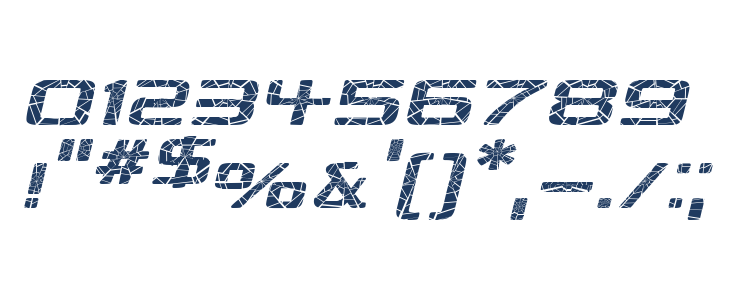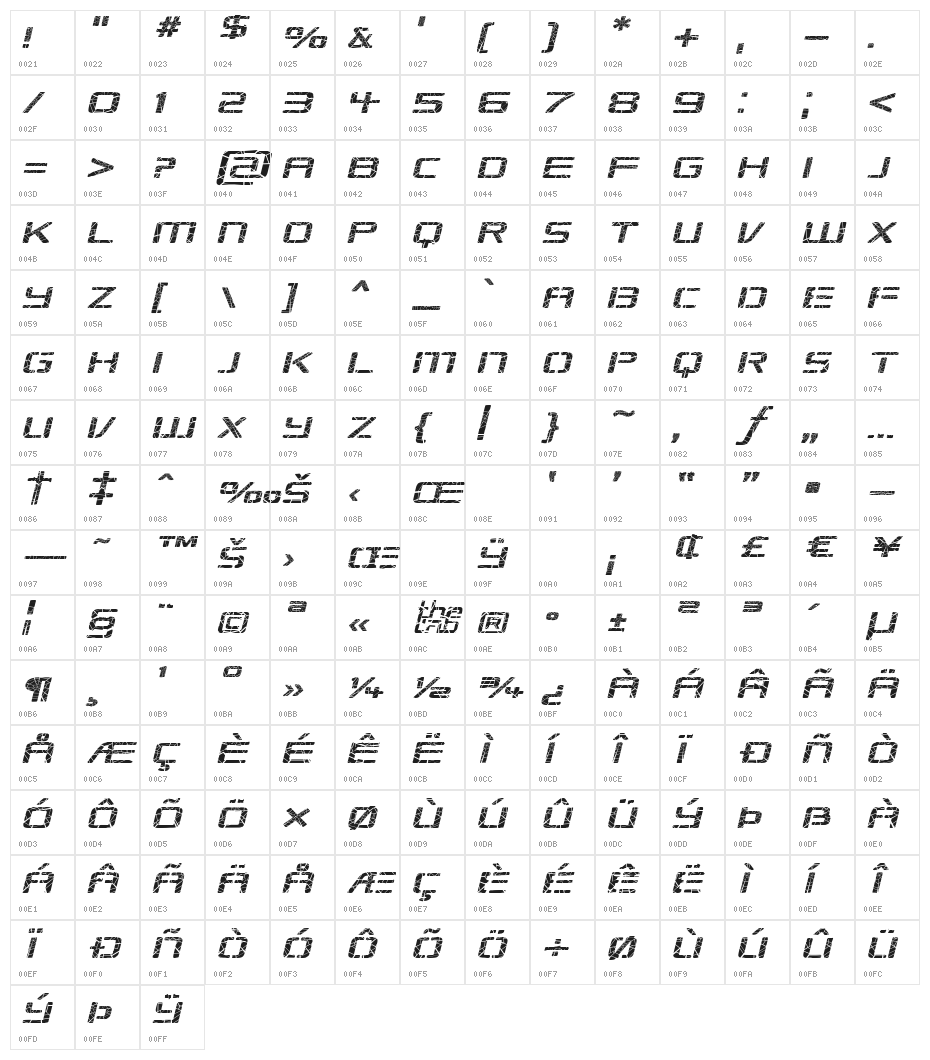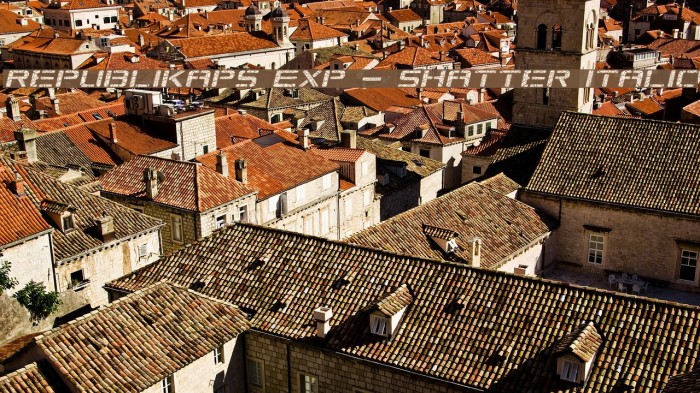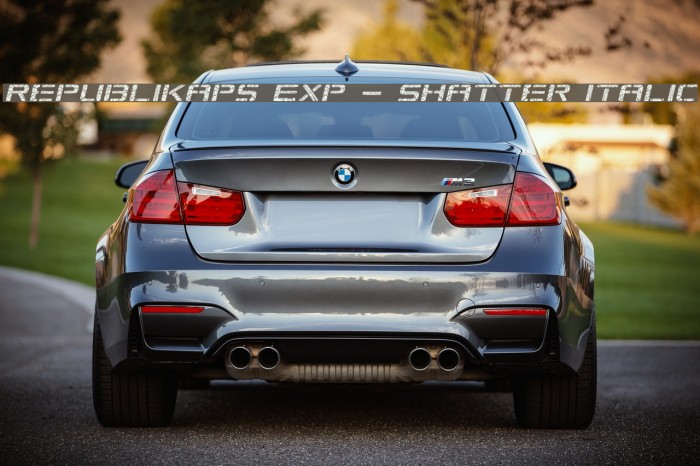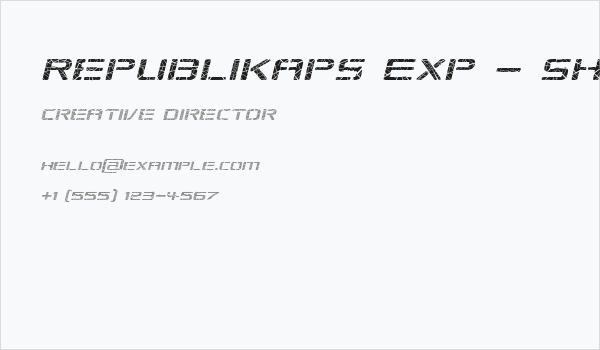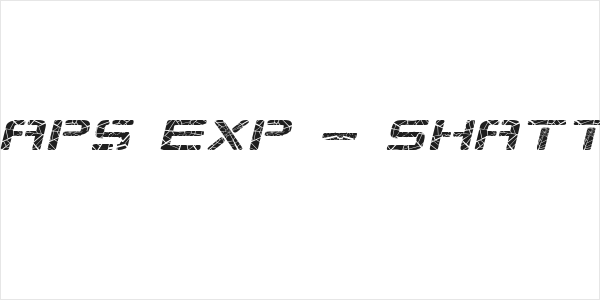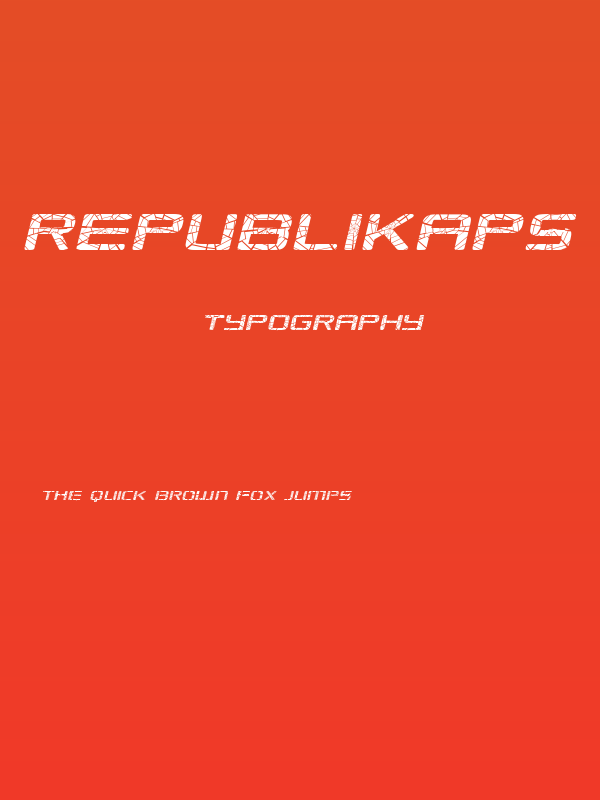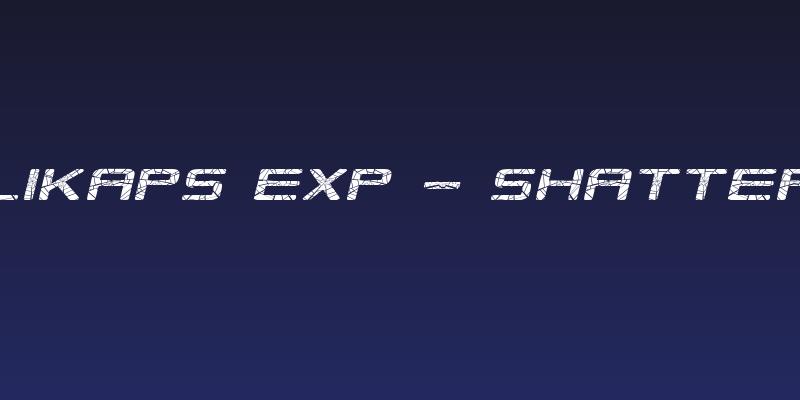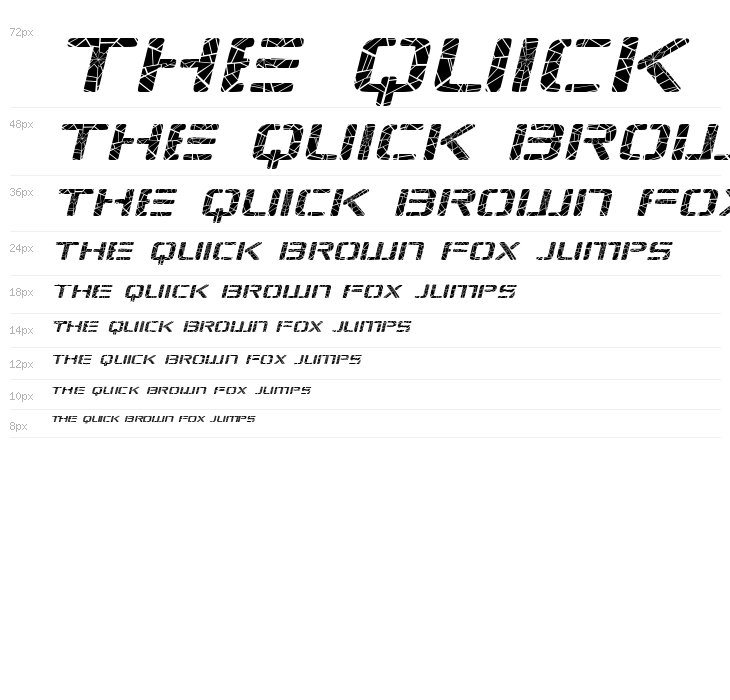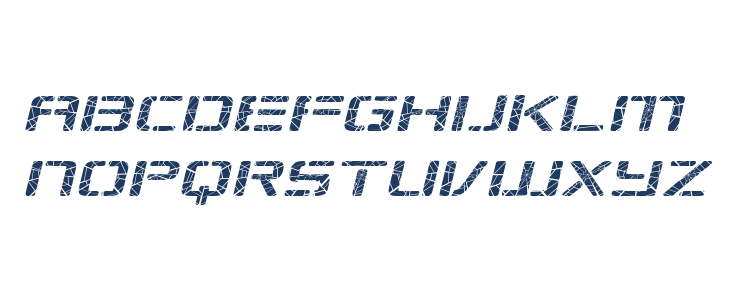
Republikaps Exp - Shatter Italic Font
Republikaps Exp - Shatter Italic Description
This font features a unique shattered effect, giving each character a fragmented, dynamic appearance. The angular, geometric design is consistent across uppercase, lowercase, numbers, and special characters, creating a cohesive yet striking visual impact. The italic slant adds a sense of motion and urgency, enhancing its modern and edgy aesthetic. The font's bold weight ensures strong visibility, making it suitable for attention-grabbing designs. The character spacing is normal, allowing for clear readability despite the intricate detailing within each letterform. This font is ideal for projects that require a bold statement, combining both artistic flair and modern design elements.
| Proposed Projects | Ideal for posters, album covers, video game titles, and branding that demands a bold, edgy look. |